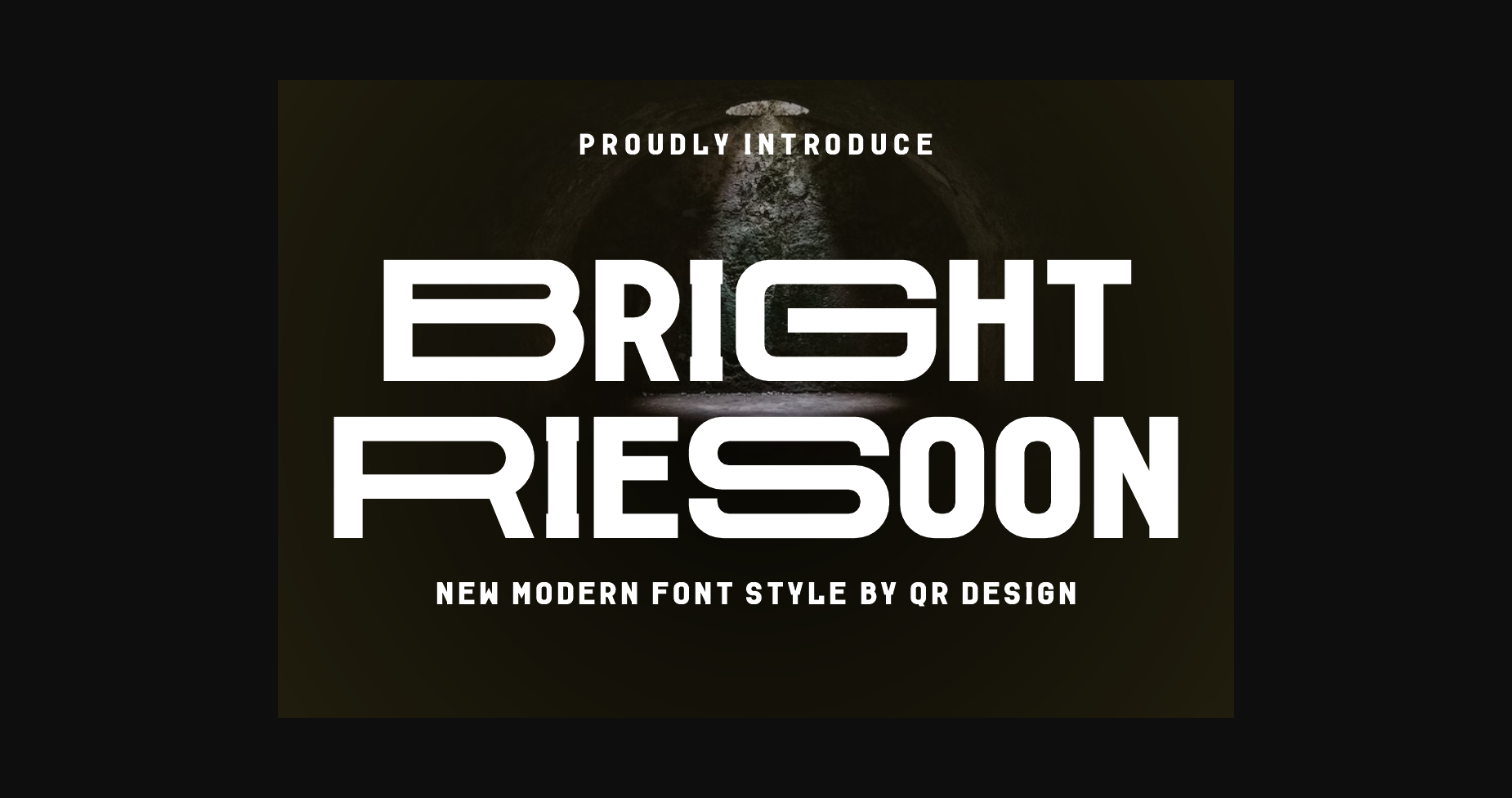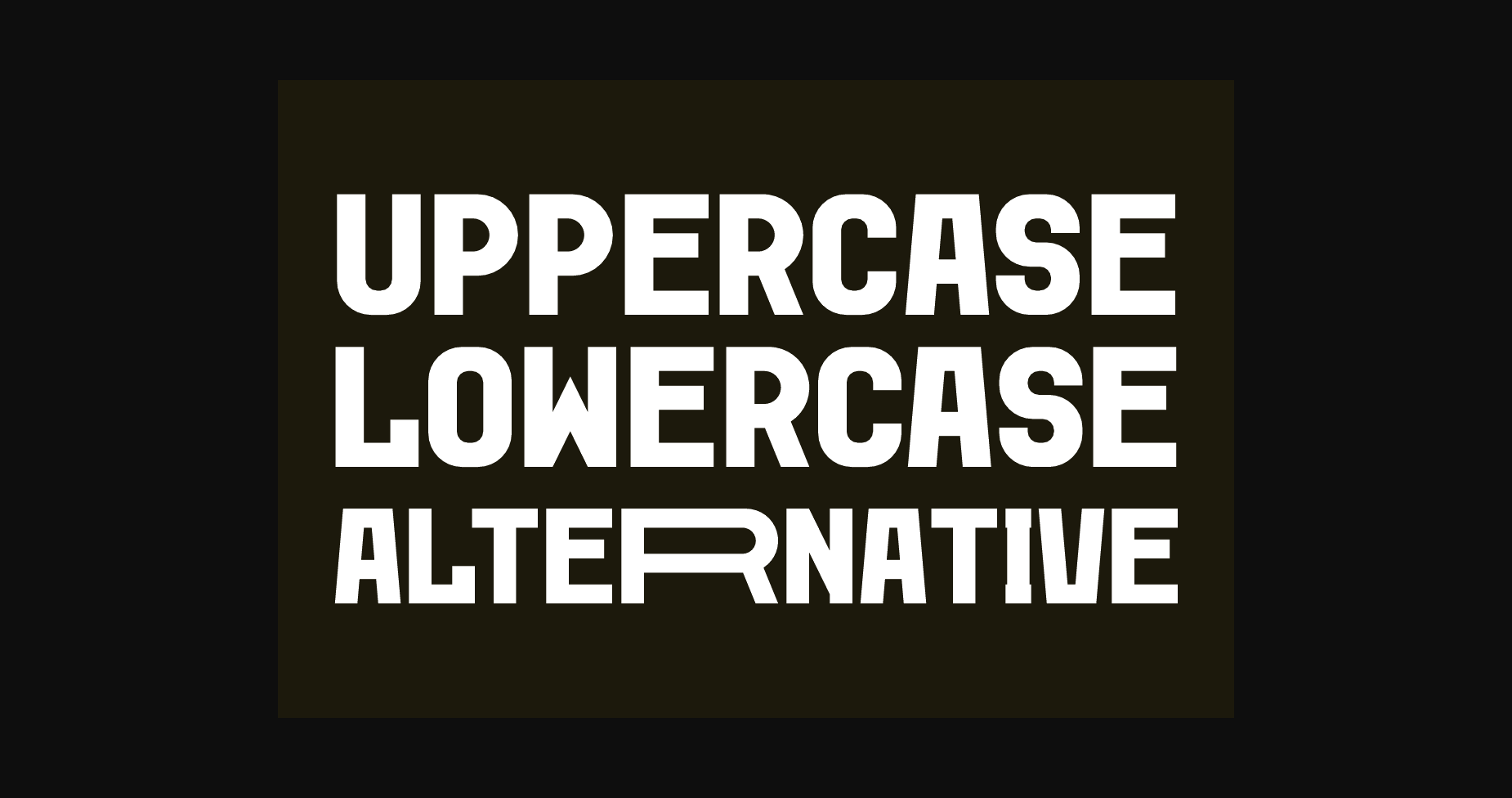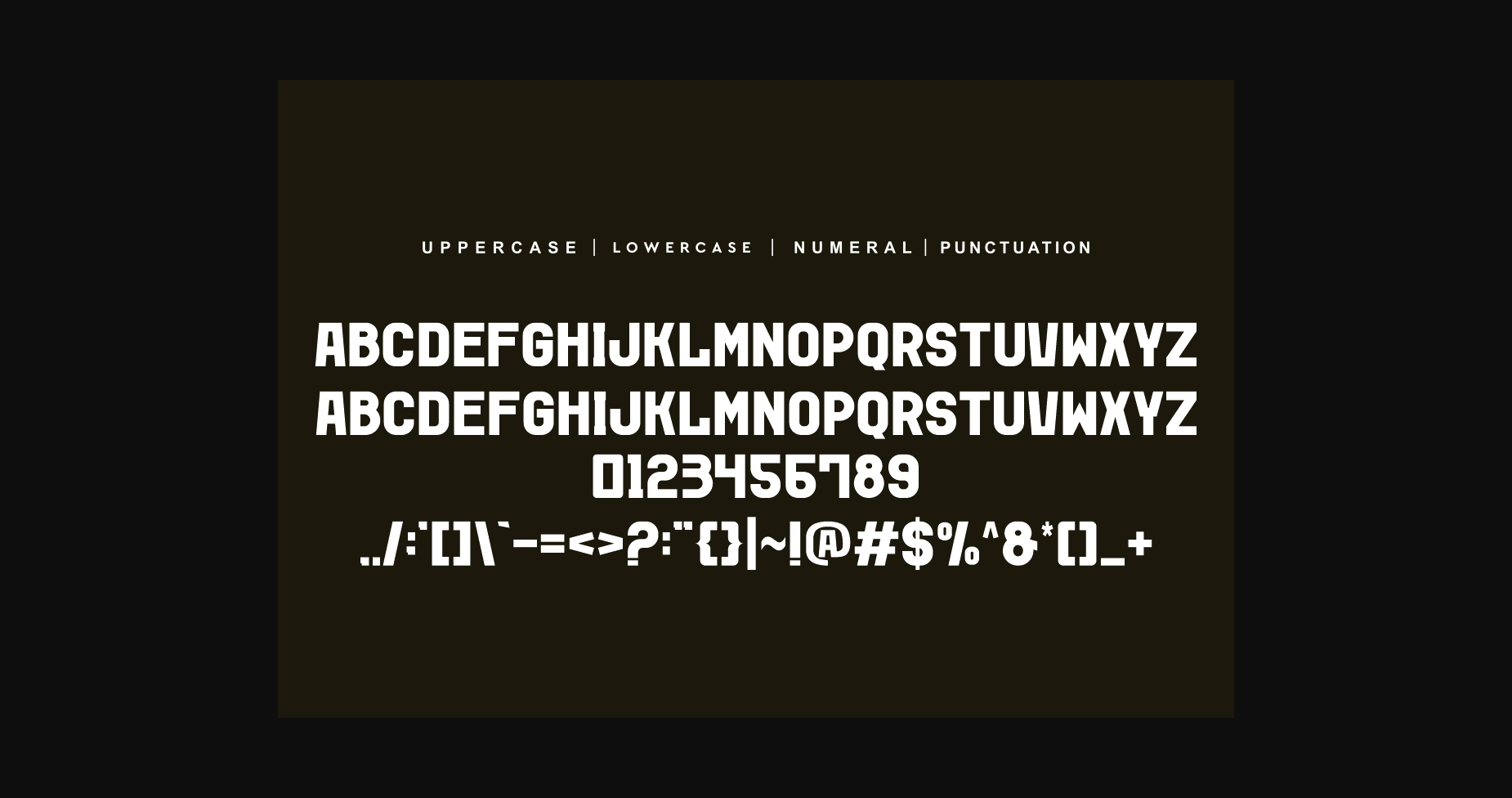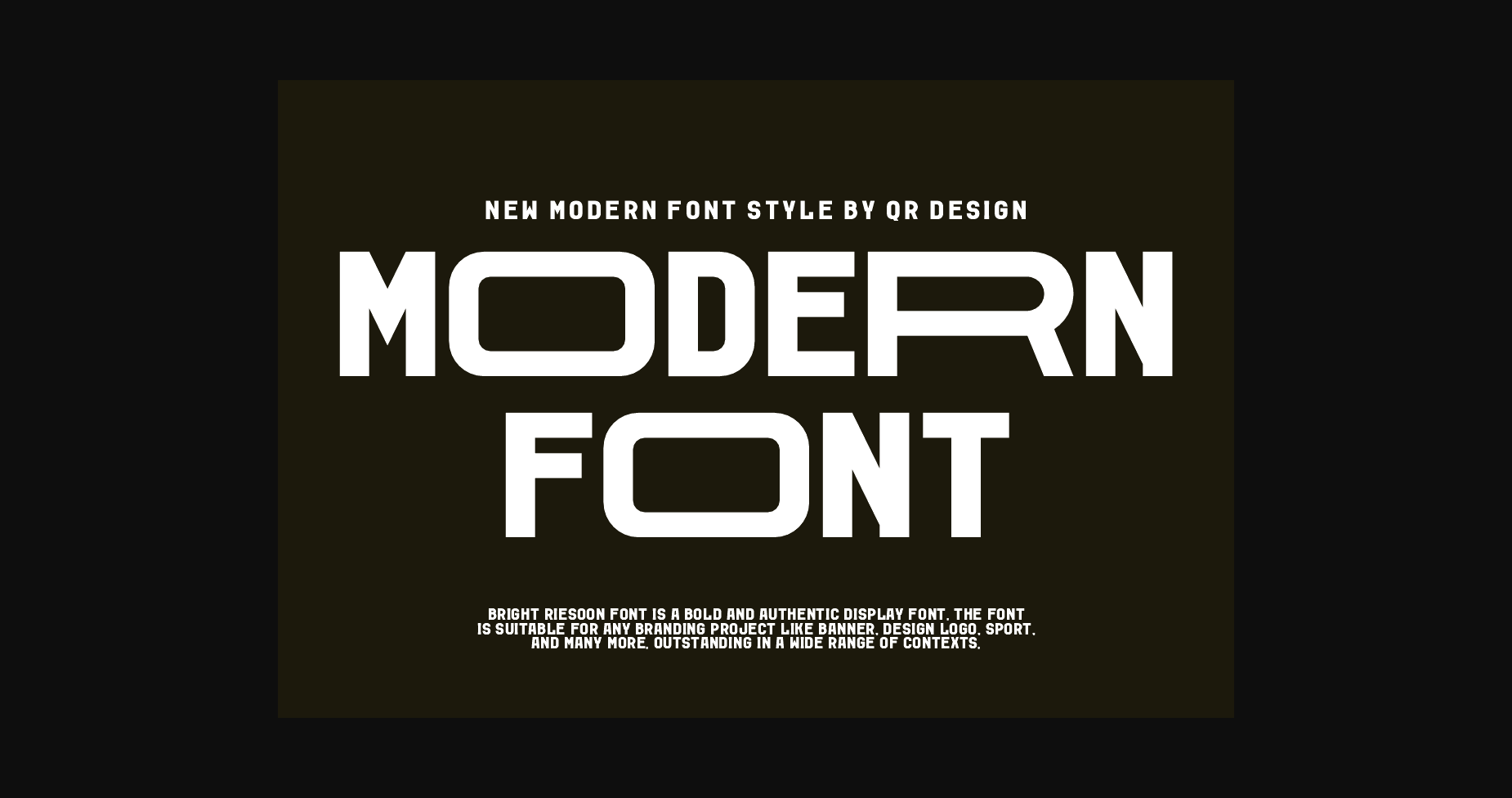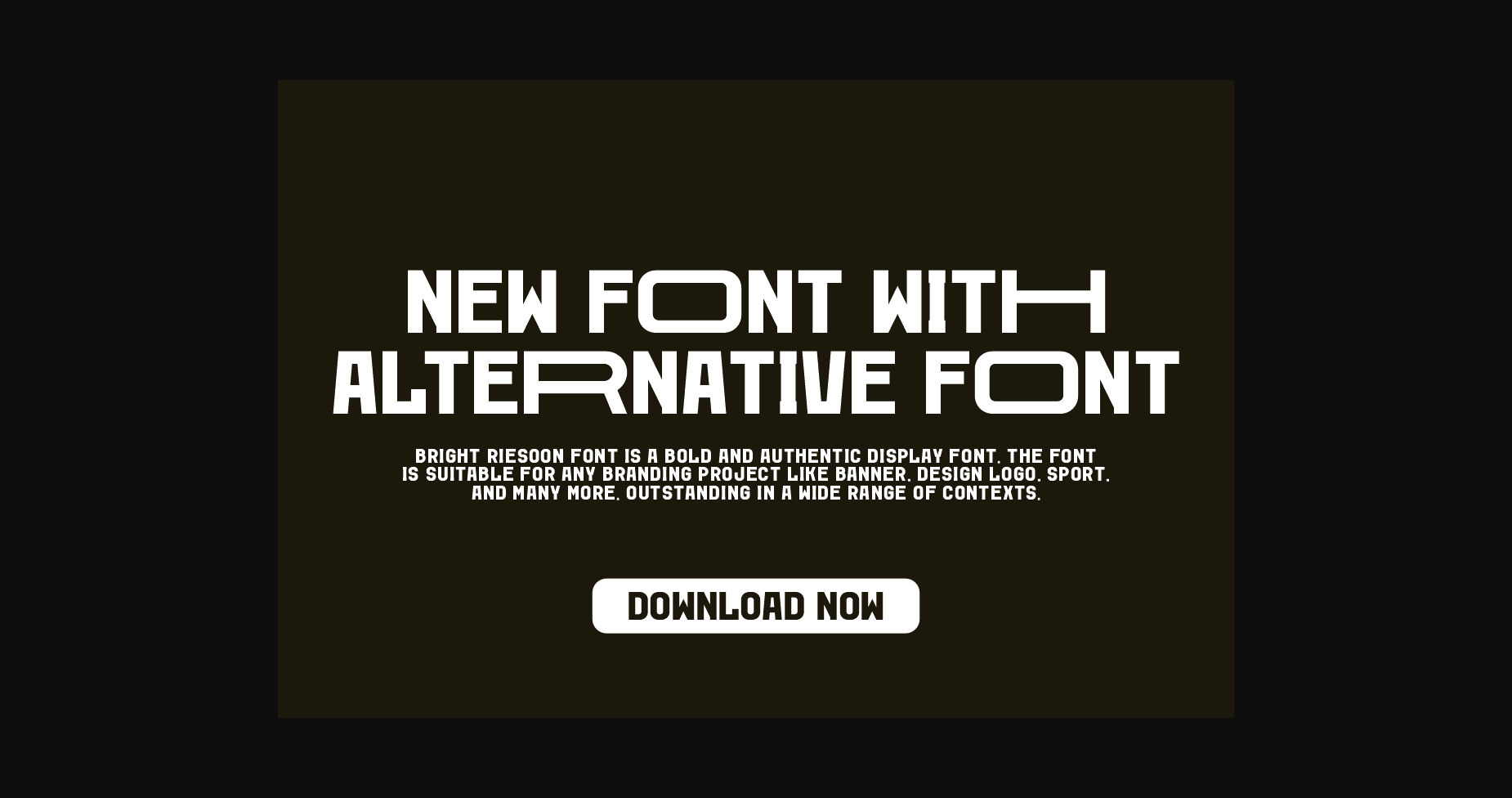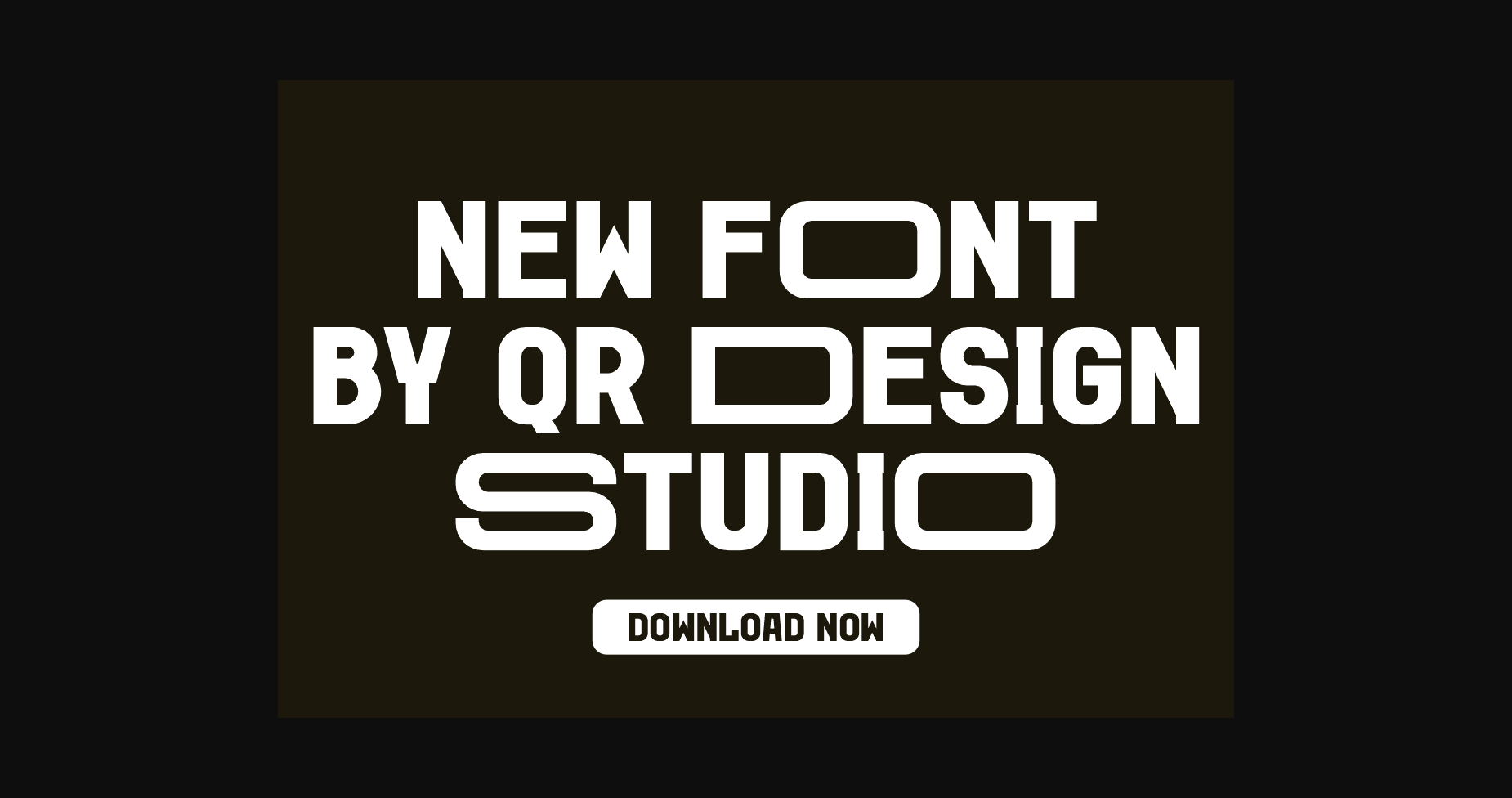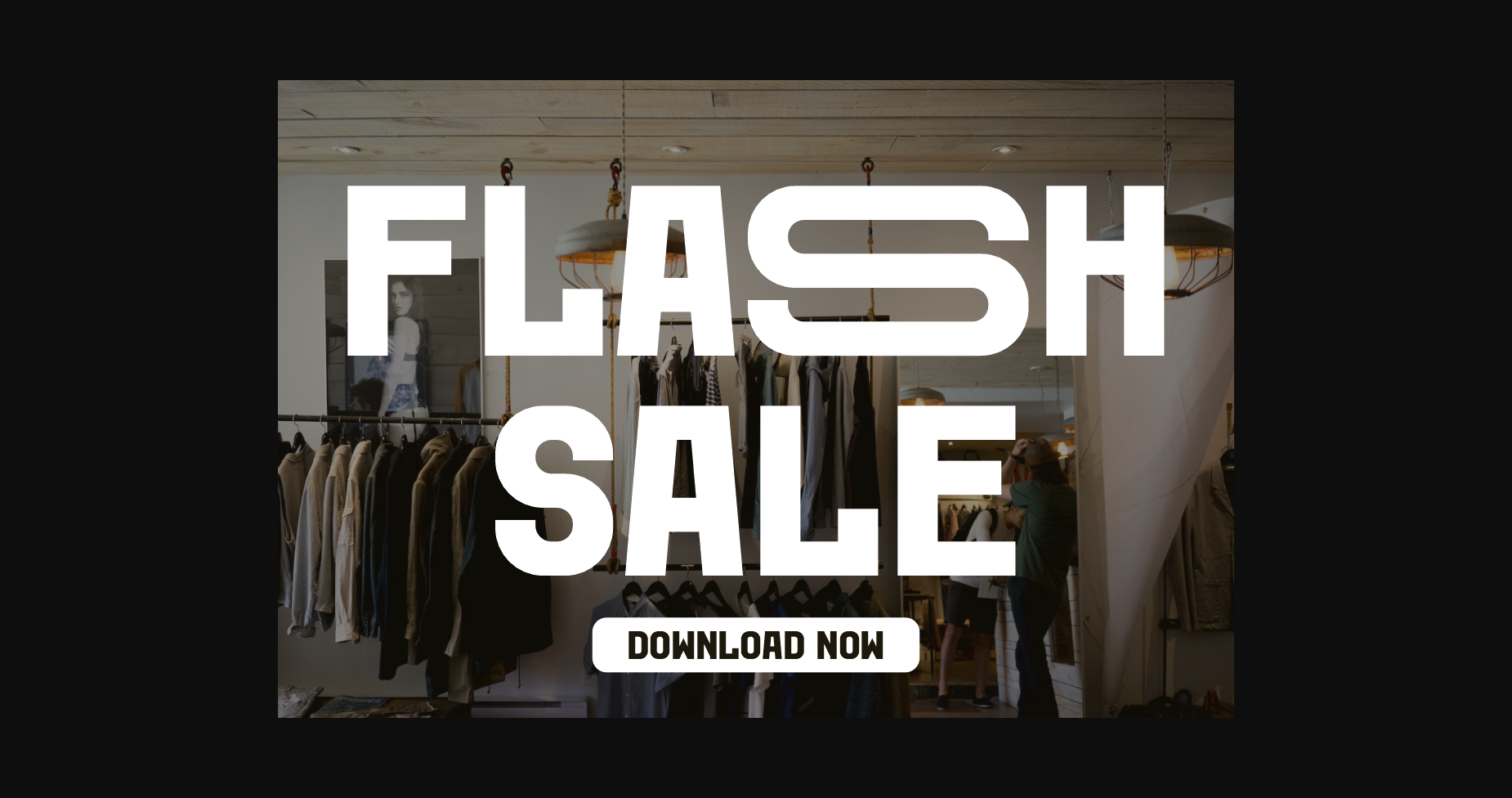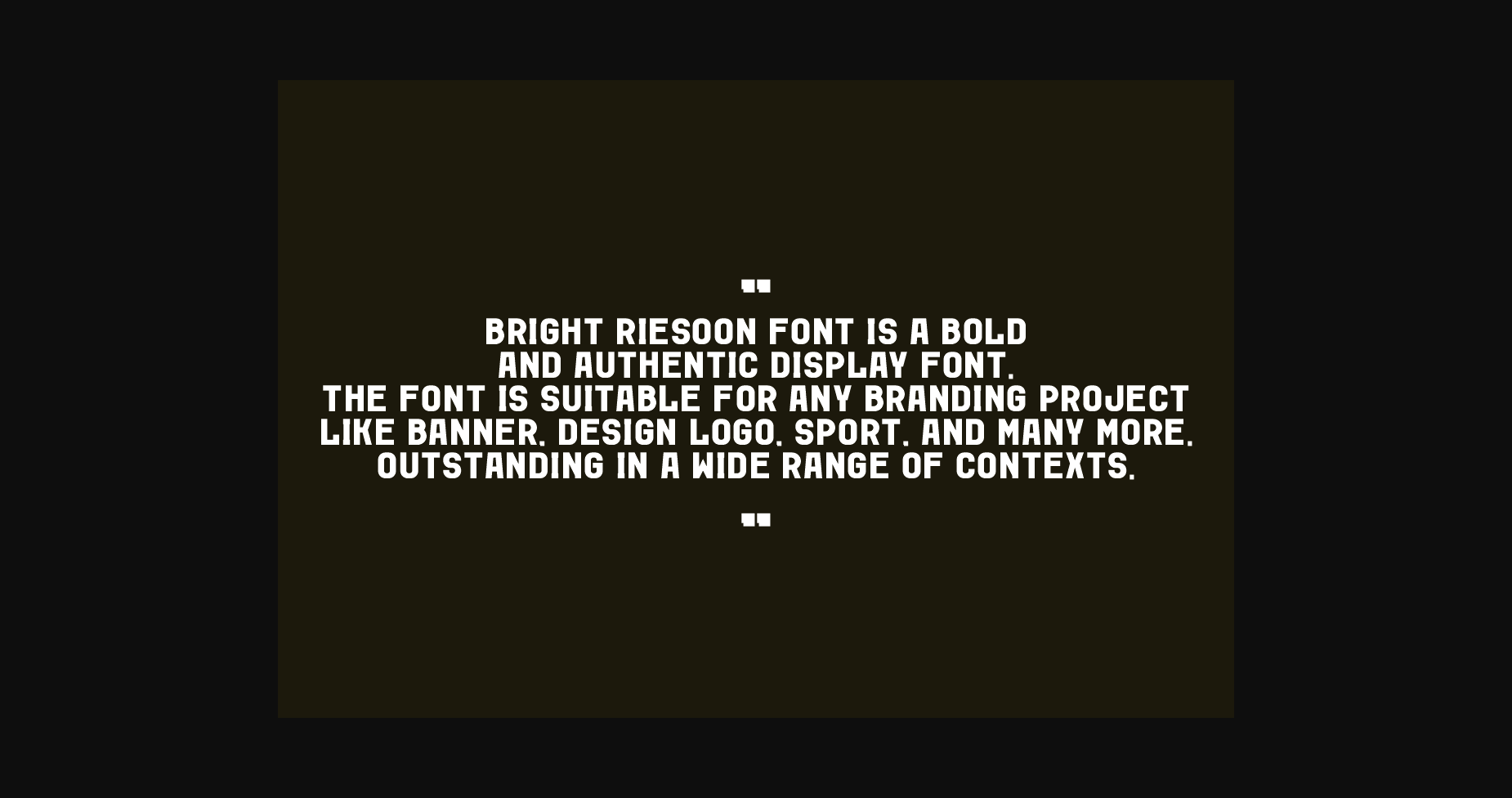
HomeSans Serif FontsBright Riesoon Font Sans Serif Fonts Bright Riesoon Font FacebookTwitterPinterestWhatsApp 1 of 11 ... Bright Riesoon Font Poster 2... Bright Riesoon Font Poster 3... Bright Riesoon Font Poster 4... Bright Riesoon Font Poster 5... Bright Riesoon Font Poster 6... Bright Riesoon Font Poster 7... Bright Riesoon Font Poster 8... Bright Riesoon Font Poster 9... Bright Riesoon Font Poster 10... Bright Riesoon Font Poster 11... About Bright Riesoon Font Bright Riesoon is a cool and powerful sans serif font. Add it to your posters, banners, headlines, and you will love the results! DOWNLOAD NOW People also explored Dellamose Font Beautiful Day King Neprog Font Hello Darling Font Dominicle Font Winter Brush Font Alvarisky Font Wonderful Font Amsterdian Font 254 0 TagsBright Riesoon Font Previous articleBlack FontNext articleSupport Balmond Font LEAVE A REPLY Cancel reply Comment: Please enter your comment! Name:* Please enter your name here Email:* You have entered an incorrect email address! Please enter your email address here Website: Save my name, email, and website in this browser for the next time I comment. Personal Use Free Just Smile Personal Use Free Read more about this font Love Memories Personal Use Free Read more about this font Deling Personal Use Free Read more about this font Geracella Personal Use Free Read more about this font BLOG Free vs Paid Fonts: Why Investing in Premium Fonts Is Worth It Free vs Paid Fonts: Why Premium Fonts Are Worth It in 2025 The debate of free vs paid fonts continues in the design world. While... Best Fonts for YouTube Videos: Make Your Thumbnails Stand Out Where to Buy American Fonts Online in 2024 Elegant Wedding Invitation Fonts – Handwritten & Script Fonts